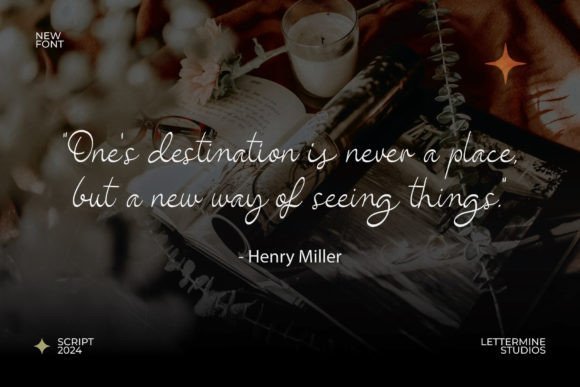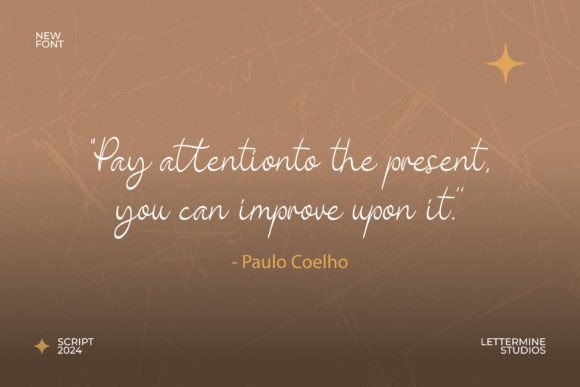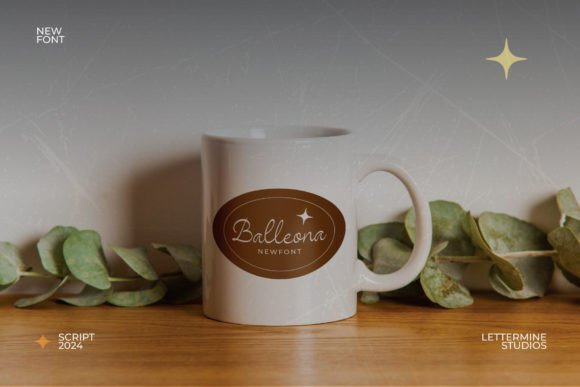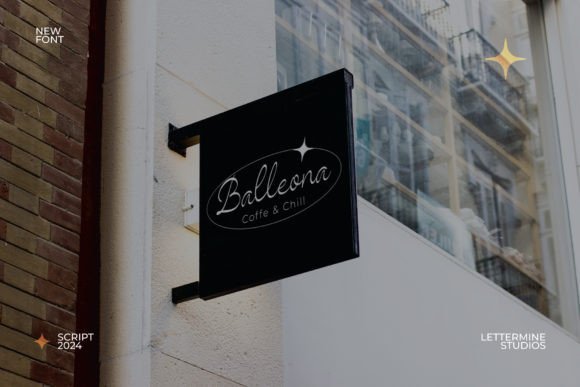
Balleona Font Font
Balleona is a stylish and incredibly elegant script font. It looks stunning on wedding invitations, thank you cards, quotes, greeting cards, logos, business cards and every other design which needs a handwritten touch.